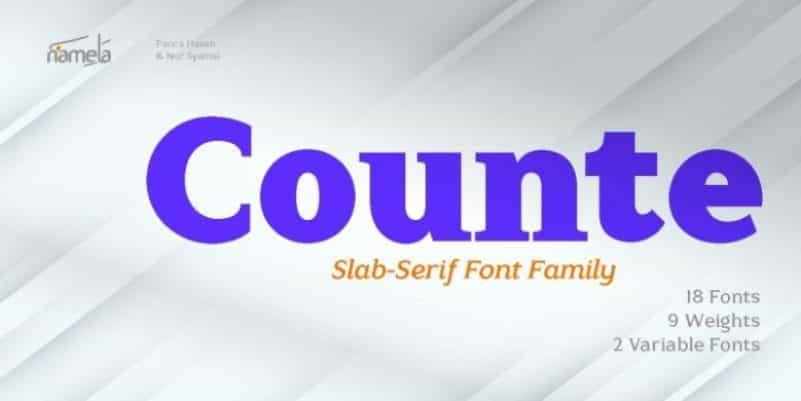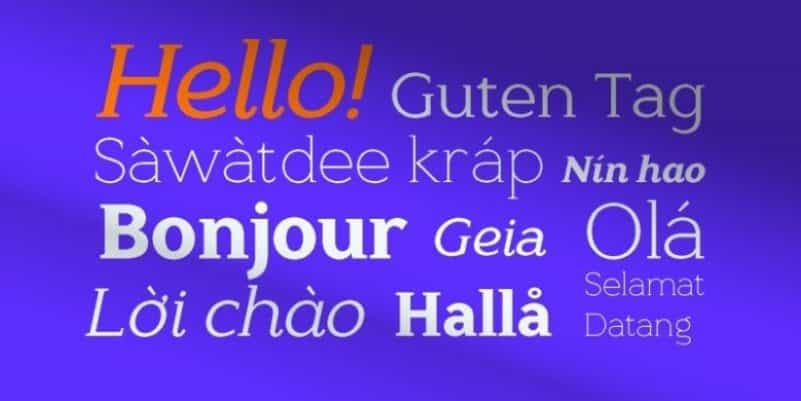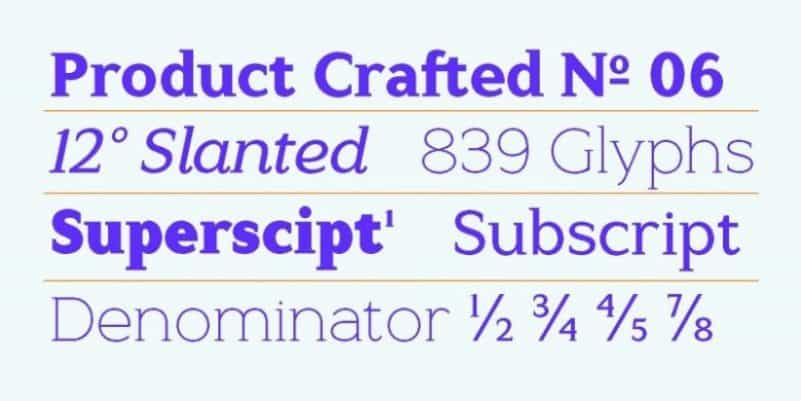
Discover Counte Slab Serif Font, part of the Serif Slab Serif collection—a versatile and unique font perfect for adding a personal touch to your projects. Download it for free and enjoy crafting designs with style, from invitations to social media posts. This font is available exclusively for personal use, giving you the freedom to create without limits. Unlock your creativity with Counte Slab Serif Font today!
Now writing our own serif fonts for the first time. With a modern slab serif text type design characterized by symmetrical bracketed serifs on uprights and an italic style of serifs. Made with low contrast strokes, this font is versatile; perfect for text and printing alike.